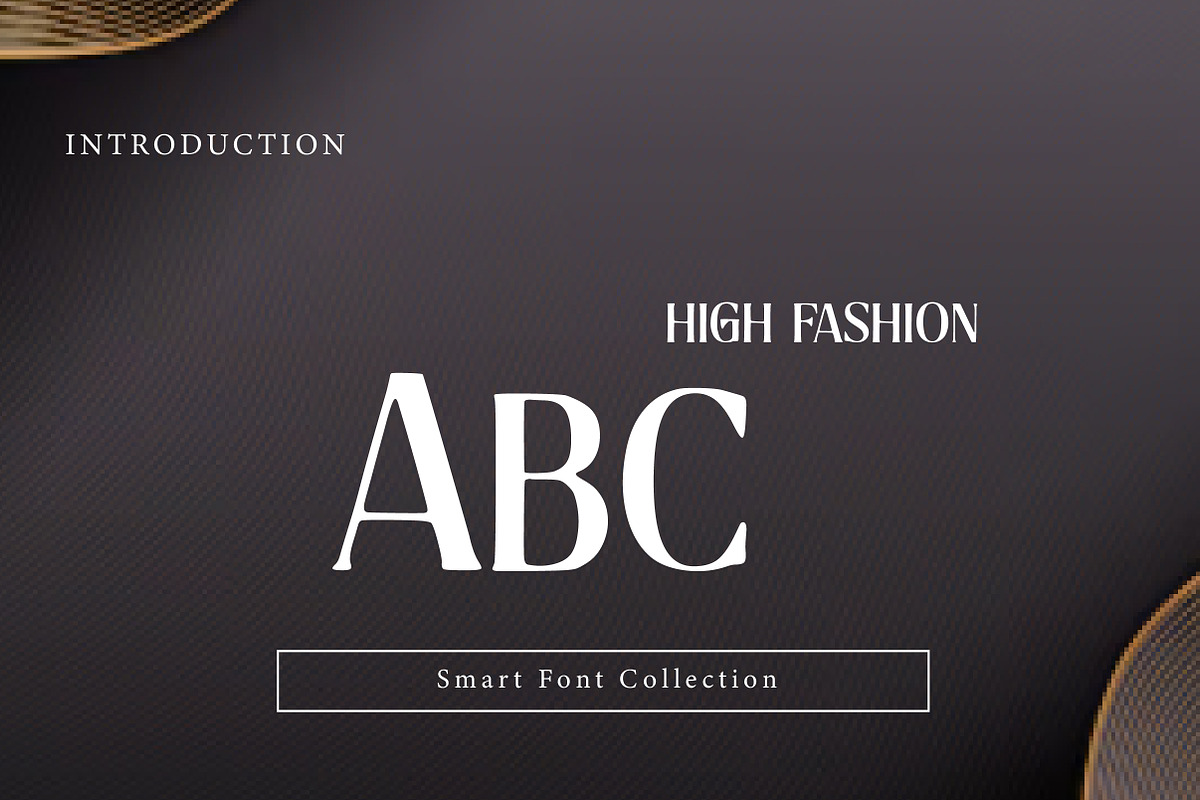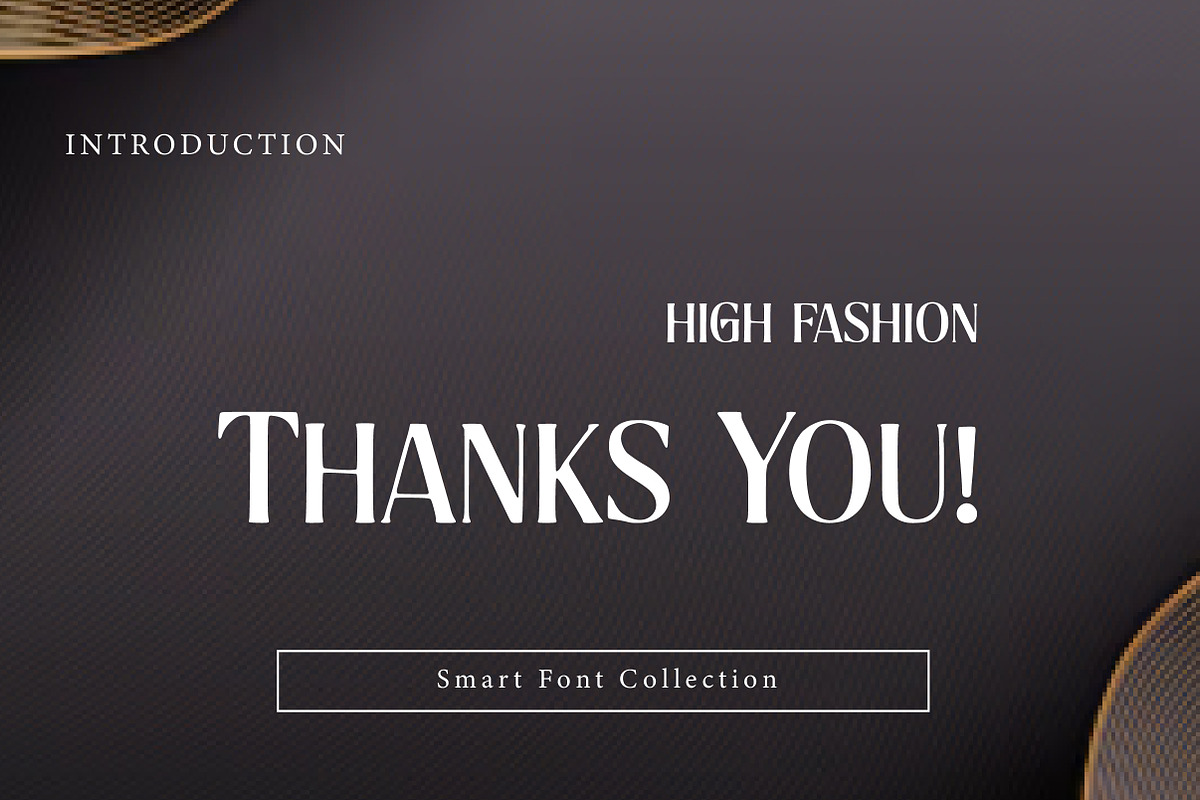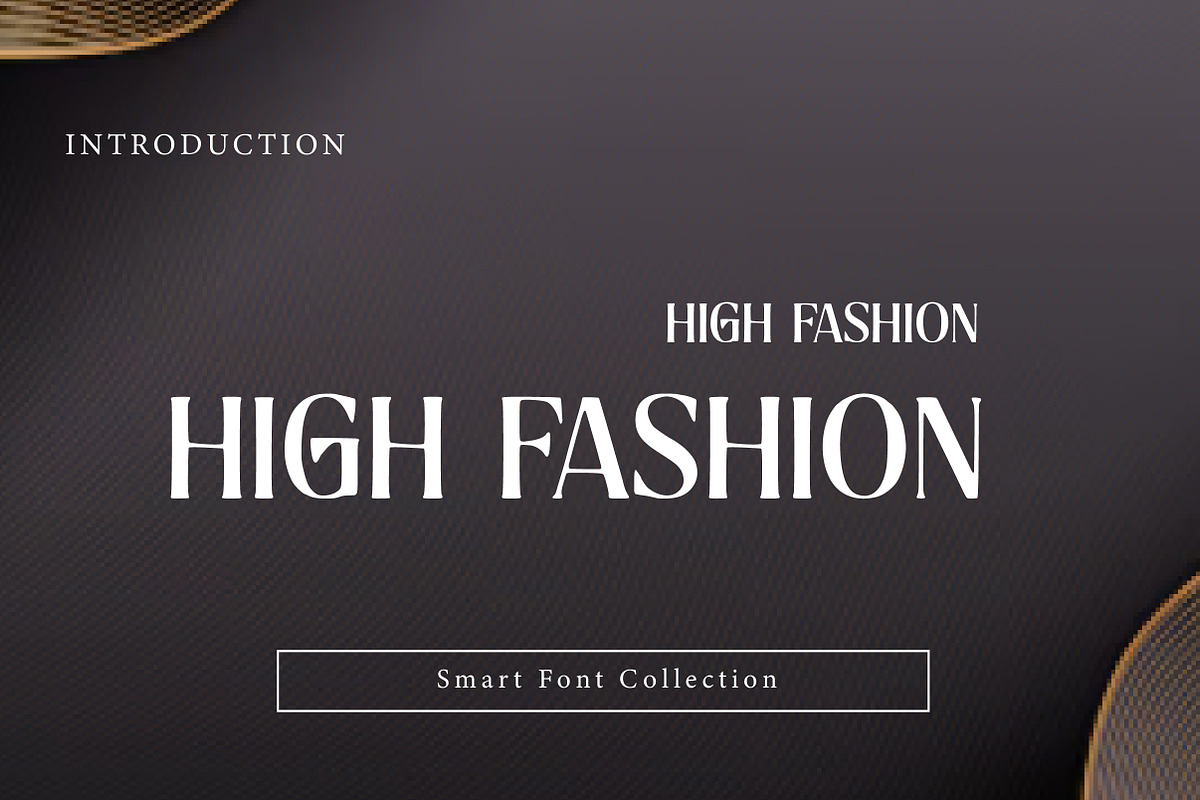
High Fashion
High Fashion is a modern, elegant, and luxury-inspired serif display font crafted for premium branding and editorial design. With its clean structure, refined curves, and stylish serif details, this typeface delivers a sophisticated high-end look—perfect for fashion-focused projects and luxury brand identities.
Designed with an editorial aesthetic in mind, High Fashion works beautifully for fashion logos, magazine titles, beauty branding, boutique labels, premium packaging, wedding invitations, and upscale social media designs. Its classy letterforms create a polished, professional feel while maintaining strong readability in both print and digital formats.
Whether you're creating a luxury brand logo, designing an elegant magazine cover, building premium product labels, or crafting stylish headlines for modern advertising, High Fashion adds a timeless and exclusive tone to your typography. It performs best as a display font in titles, branding, and headline designs where the luxury details can shine.